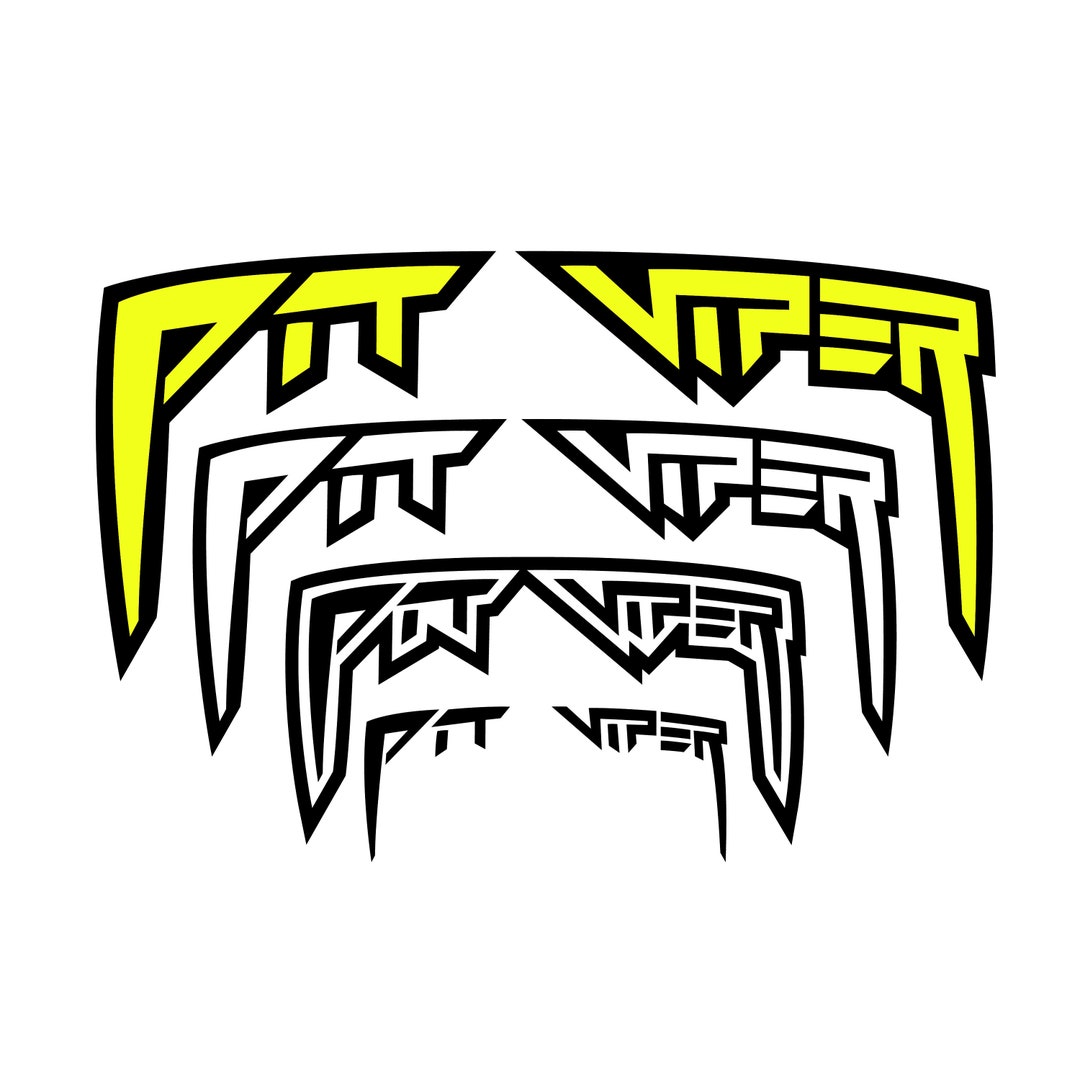
Pit Viper Font - It comes in regular and extended variant! Pitviper, vladimir nikolic, sci fi, techno. This font features a futuristic and geometric design with clean, sharp lines and a uniform structure. Download pitviper font from free cdn or use it on your website as webfont. For commercial use, please order a license here: The characters are bold and. Pitviper 100% free font family!
This font features a futuristic and geometric design with clean, sharp lines and a uniform structure.